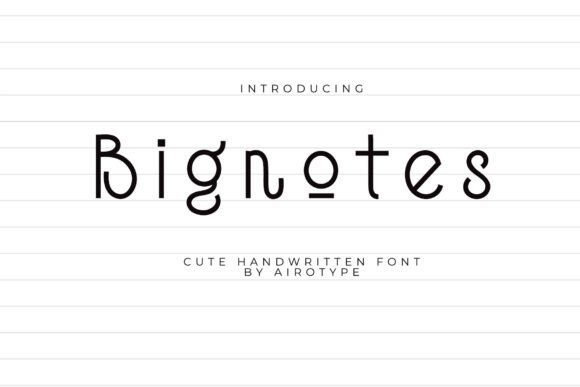
The Perfect Note-Taking Companion: Big Notes Font
Who among us hasn’t had that moment when creativity strikes and we frantically search for the perfect tool to capture our ideas? The scribbled notes on a crumpled piece of paper, the messy sketches on a napkin, or the hastily typed lines on our phones – we’ve all been there. But what if we told you there’s a way to elevate your note-taking game without sacrificing that effortless, handwritten charm?
Enter Big Notes Font, a delightful, handwritten typeface that’s equal parts playful and modern. This charming font is designed to bring a touch of personality to your projects, from journals and notes to branding and creative endeavors. For designers, Big Notes Font is a valuable addition to their toolkit, offering a unique and versatile style that can add a much-needed twist to any project.
Big Notes Font Key Features
- Font Size: The font size is scalable, allowing users to adjust the font size to suit their needs. However, the font is typically designed for use at 24-point or larger.
- Resolution: Big Notes Font is designed to be clear and readable at resolutions of 300 DPI or higher, making it suitable for use in a variety of printing and digital applications.
- Unique Characteristics: The font features large, easy-to-read characters with clear lines and a clean, modern design. The font is specifically designed for use in note-taking, journaling, and other applications where readability is crucial.
- Line Spacing: The font has a built-in line spacing feature, allowing users to adjust the space between lines to suit their needs. This feature is particularly useful for users who prefer to write or type with a lot of space between lines.
Big Notes Font Review
Overall, I’d say Big Notes Font is a solid choice for those looking for a clean and modern sans-serif typeface. ✨ Here are some things that work well:
- Open and airy feel, perfect for digital displays
- Good legibility even at small font sizes
- Neutral color palette that’s easy to customize
- Supports a wide range of languages
- May not be suitable for formal or professional applications due to its modern feel
- Lack of italic and bold font variations (although these can be added manually)
- May not be as expressive or emotive as some other sans-serif fonts
Overall, Big Notes Font is a reliable choice for digital projects where you want a clean and modern look. While it may not be the most exciting or expressive font out there, it gets the job done. I’d recommend it for projects like websites, apps, and digital publications.
Big Notes Font is ideal for creating attention-grabbing headlines, titles, and quotes. Use it to add a touch of elegance and sophistication to your designs. Some common use cases include:
- Creating eye-catching social media graphics and ads.
- Designing beautiful presentations and reports.
- Adding a personal touch to your blog posts and articles.
Alternatives to Big Notes Font for Designers
Playfair Display is an elegant and luxurious script font that is perfect for creating a high-end and sophisticated look. It is ideal for use in titles, headings, and other large text elements where a touch of luxury is desired. Playfair Display is more ornate and elaborate than Big Notes Font, making it a better choice for formal and high-end designs.
Great Vibes is a modern script font that is perfect for creating a fun and energetic vibe. It is ideal for use in titles, headings, and other large text elements where a playful and carefree feel is desired. Great Vibes is more casual and relaxed than Big Notes Font, making it a better choice for creative and artistic designs.